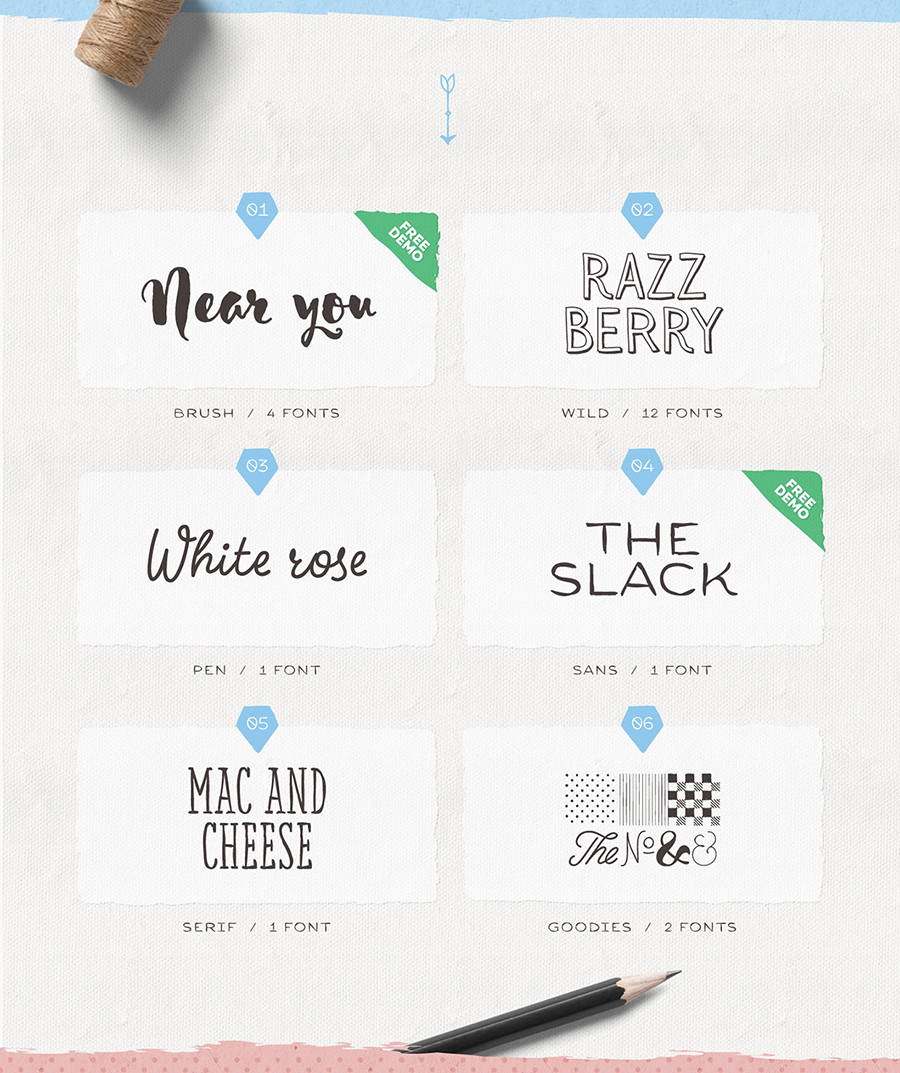
SensaFont Free Demo
Sensa is a handmade font family consisting of 21 fonts. It is divided into 6 subfamilies, each contributing to its wide range of visual power – Sensa Brush, Sensa Pen, Sensa Wild, Sensa Sans, Sensa Serif and Sensa Goodies. You can download Sensa Font Free Demo that include: Sensa Brush and Sensa Sans.
Only your imagination is the limit. Pick any of the font as a leading one and the rest of the fonts can accompany it with ease. To work together in all possible combinations, all fonts in this package were created with that simple idea in mind.